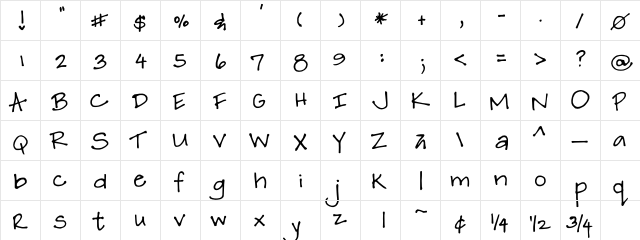
FG Ronja Regular
Design Context for FG Ronja Typeface
FG Ronja takes a measured approach to typography — its balanced proportions and neutral character make it a reliable workhorse for both digital and print work.